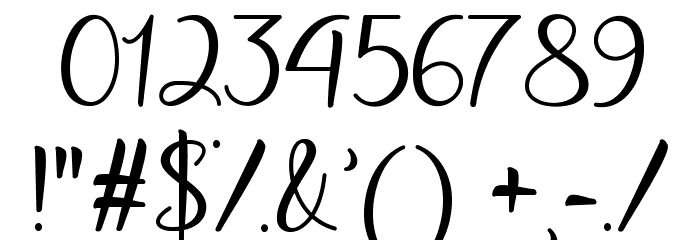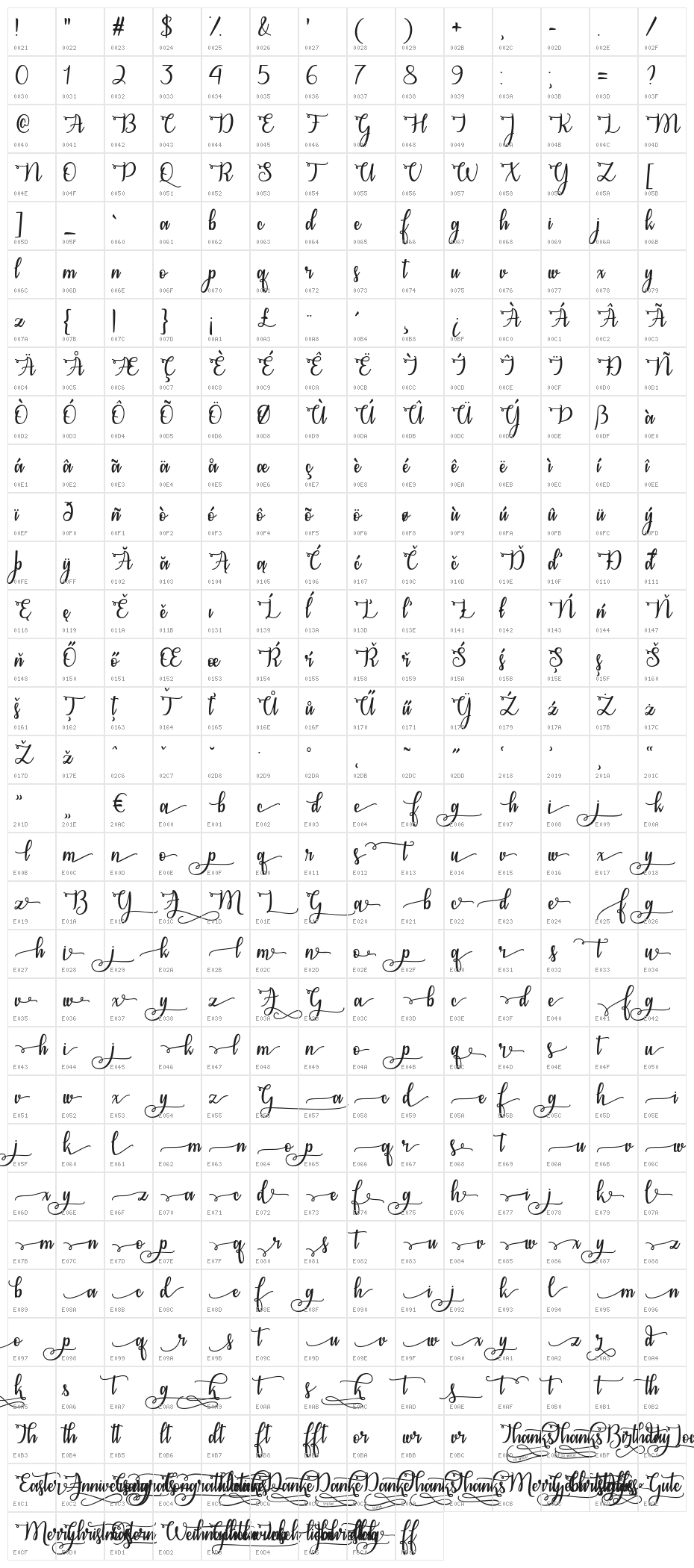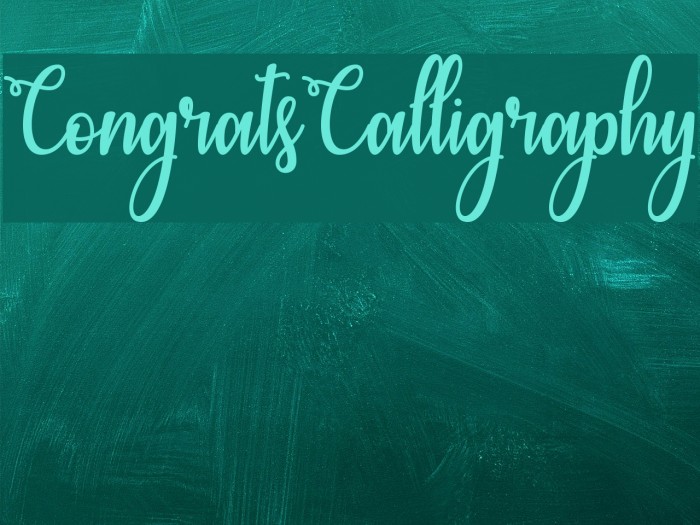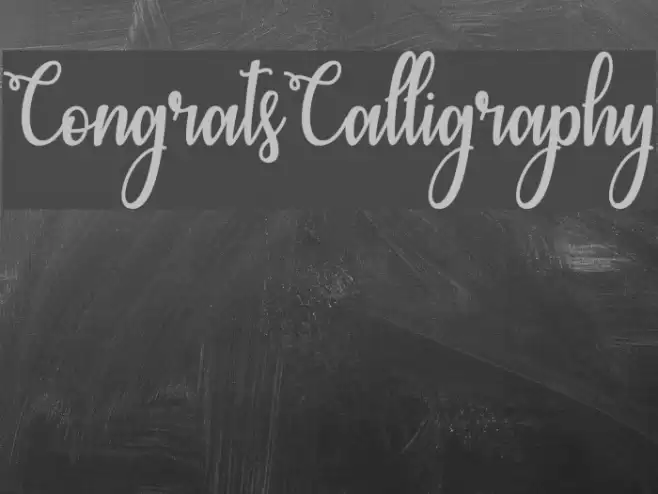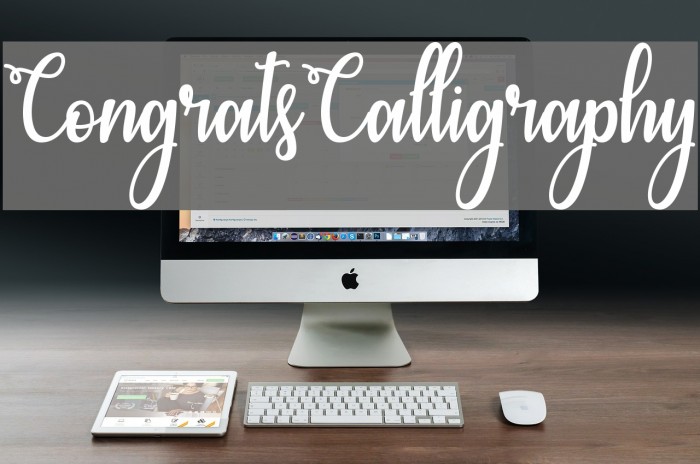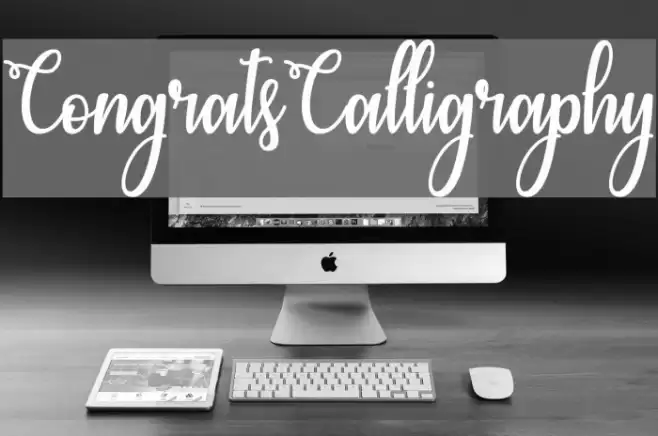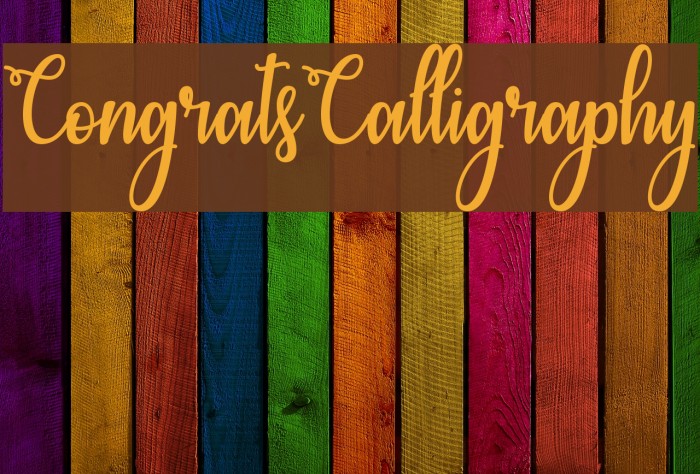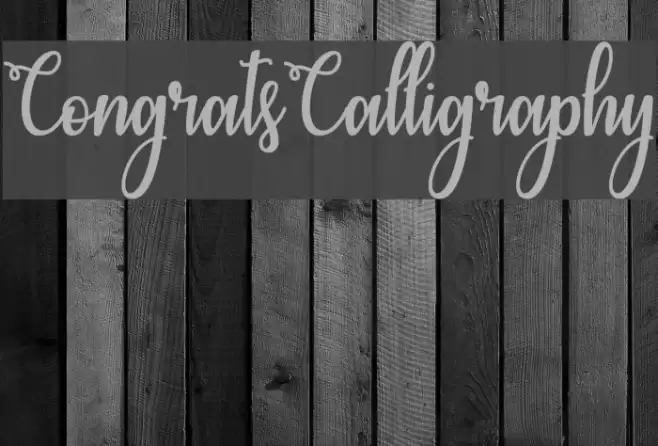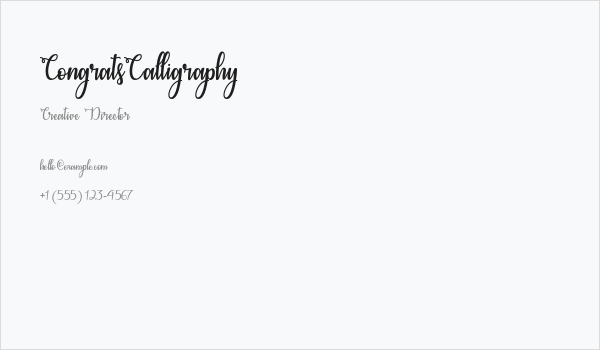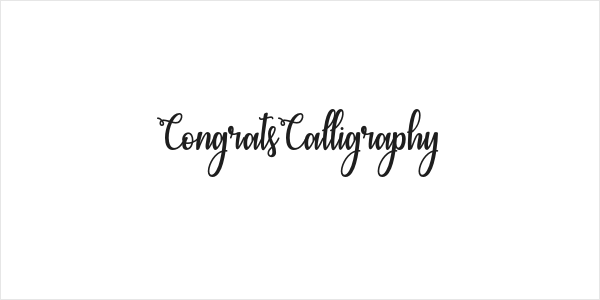
CongratsCalligraphy Font
CongratsCalligraphy Description
This font features an elegant and flowing calligraphic style, characterized by its ornate and decorative elements. The uppercase letters are embellished with small loops and flourishes, giving them a whimsical and sophisticated appearance. The lowercase letters maintain a smooth, cursive flow, enhancing the font's overall graceful aesthetic. The numerals are clear and slightly stylized, complementing the script-like quality of the letters. Special characters are designed with a similar flair, ensuring consistency throughout the font. This typeface is ideal for projects that require a touch of elegance and creativity.